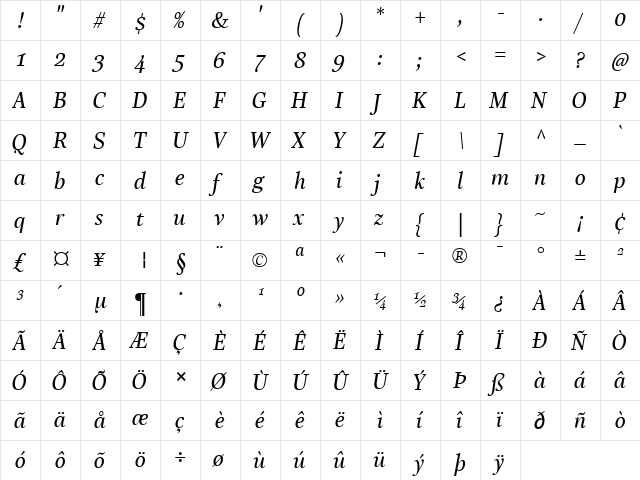
LTReally Medium Italic
Design Context for LTReally Medium Typeface
LTReally Medium is a composed and adaptable typeface that performs quietly and consistently across a wide range of design contexts. The dynamic lean of this cut emphasises speed and emphasis in any layout.
Pro Tip: Try LTReally Medium for annotation and caption copy alongside an upright companion — the contrast in angle creates a dynamic but ordered typographic system.